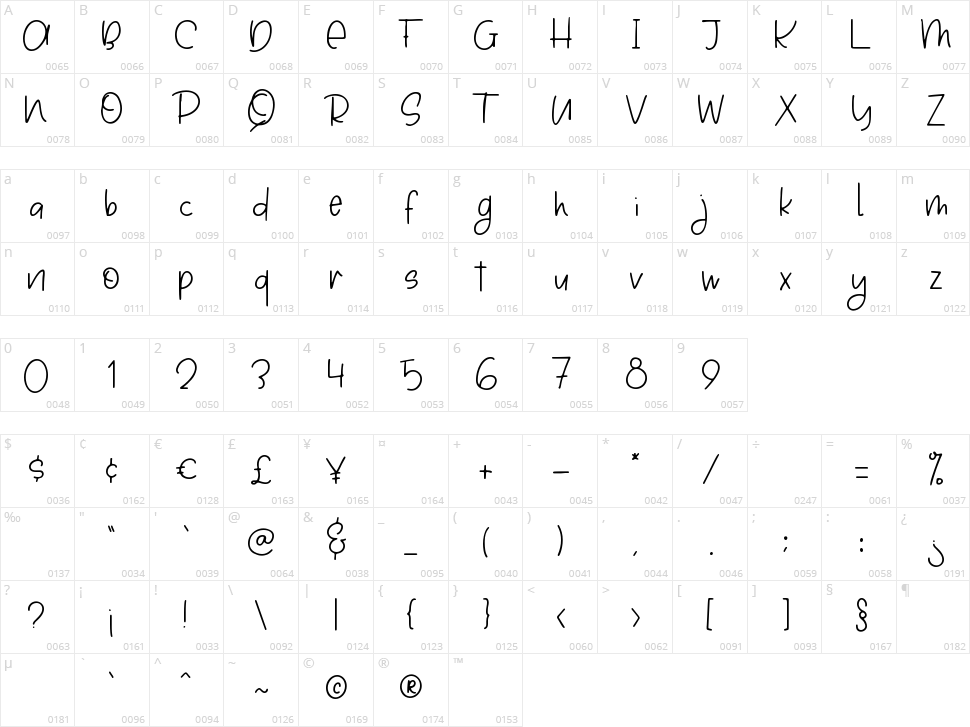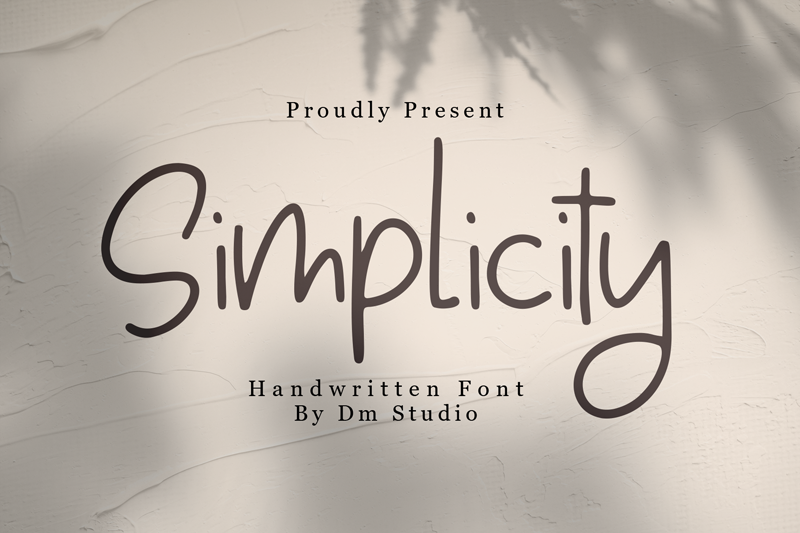
Simplicity
This enchanting font will turn any creative idea into a true standout.
Perfect fit for all of your logos, branding, social media, etc.
Get creative with its unique playfulness, and use it to brighten up any crafting project!
Perfect fit for all of your logos, branding, social media, etc.
Get creative with its unique playfulness, and use it to brighten up any crafting project!